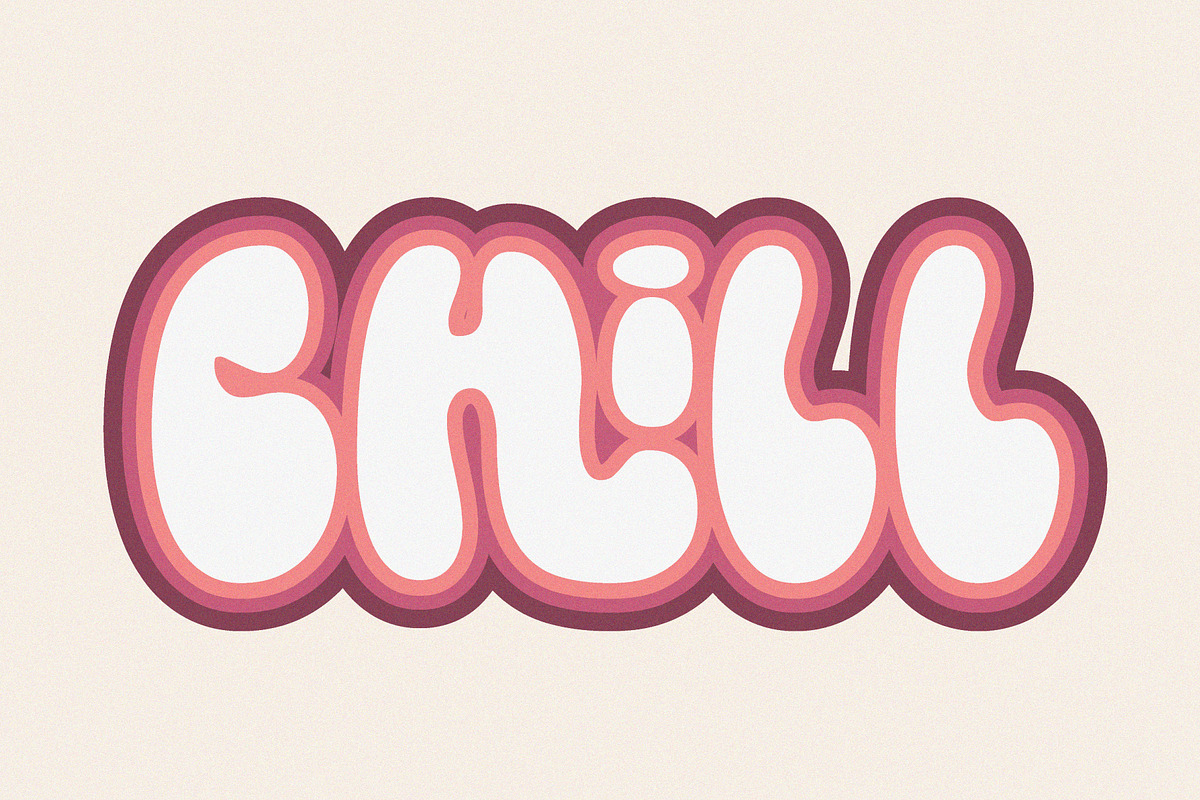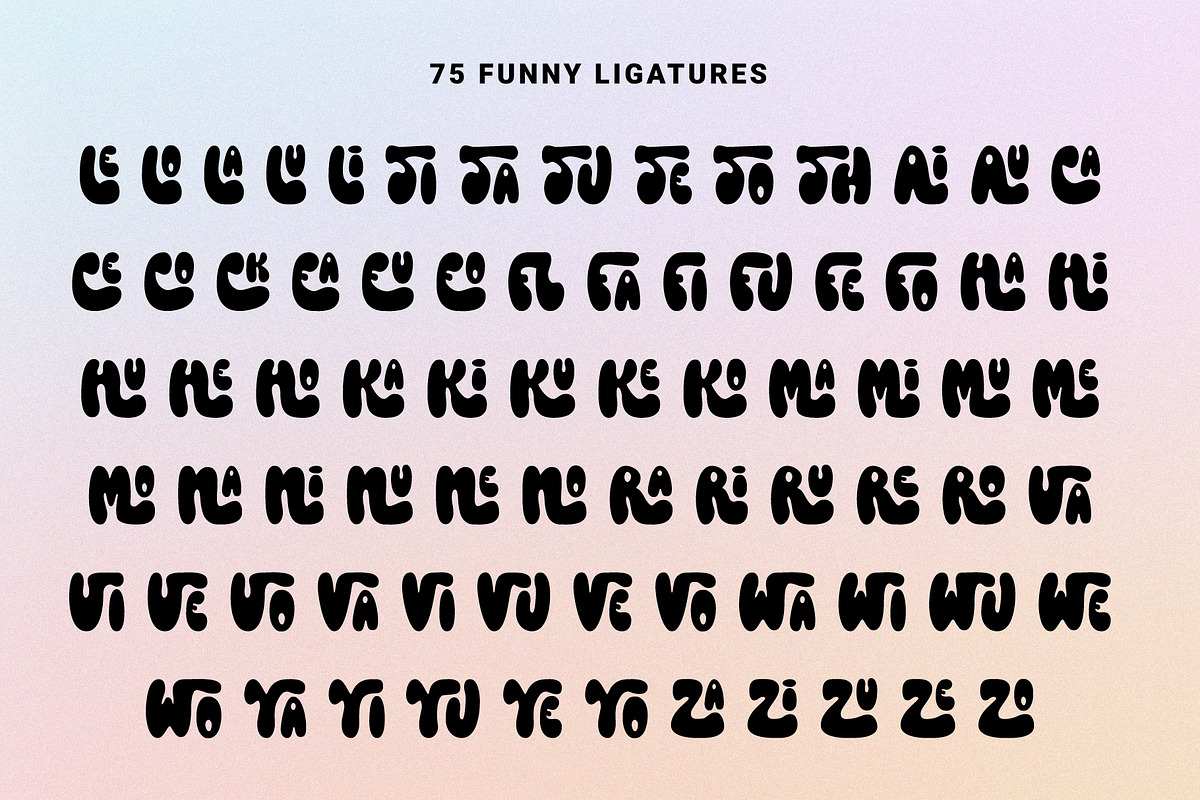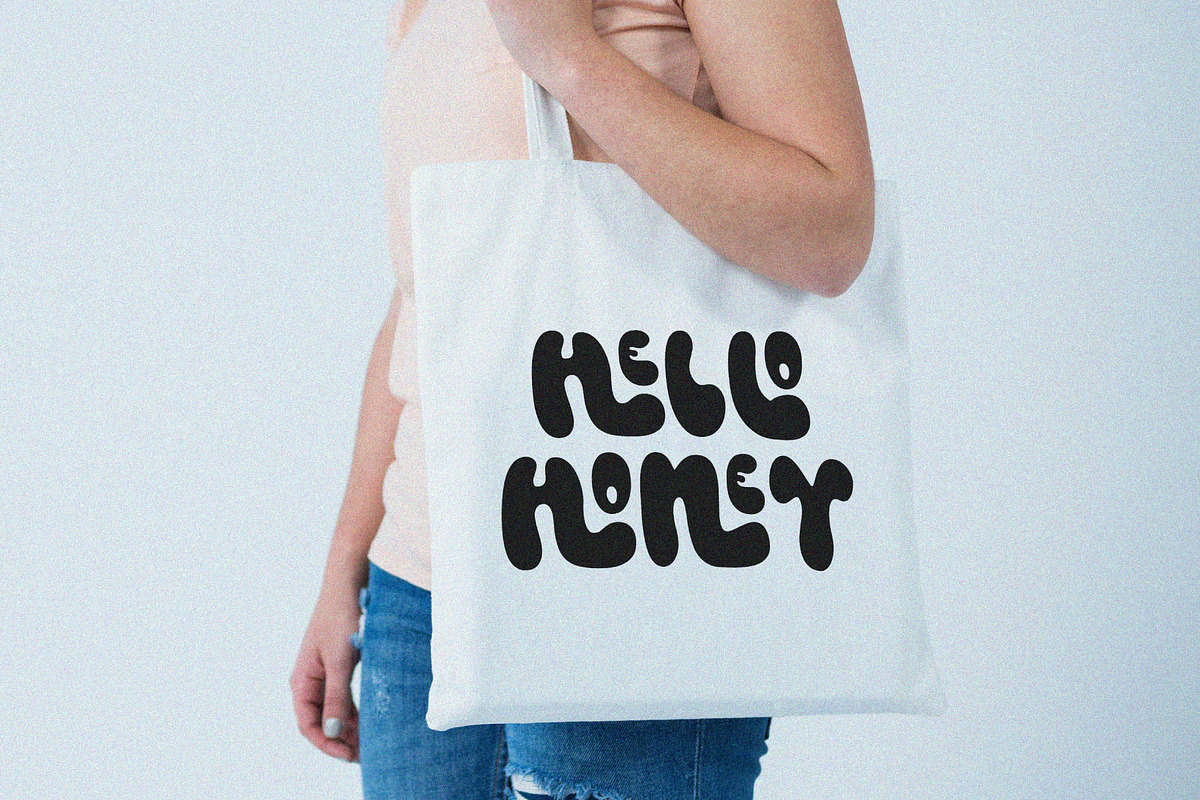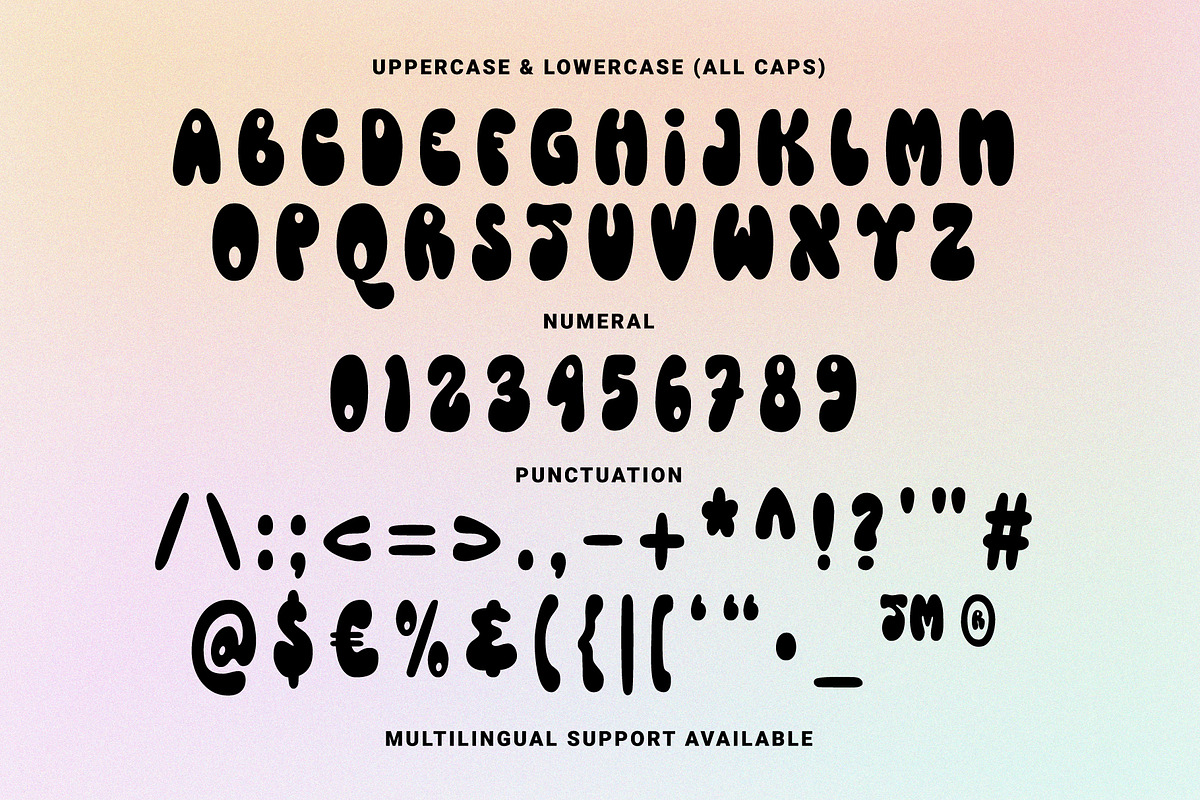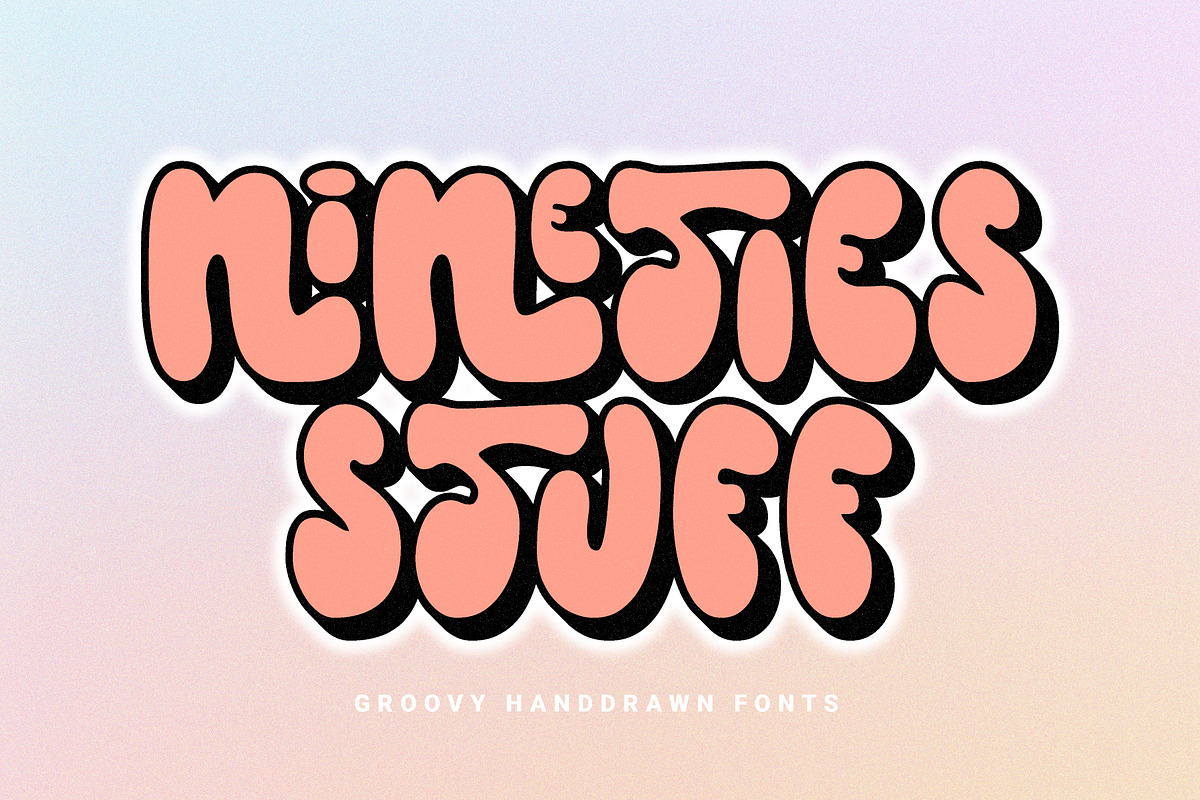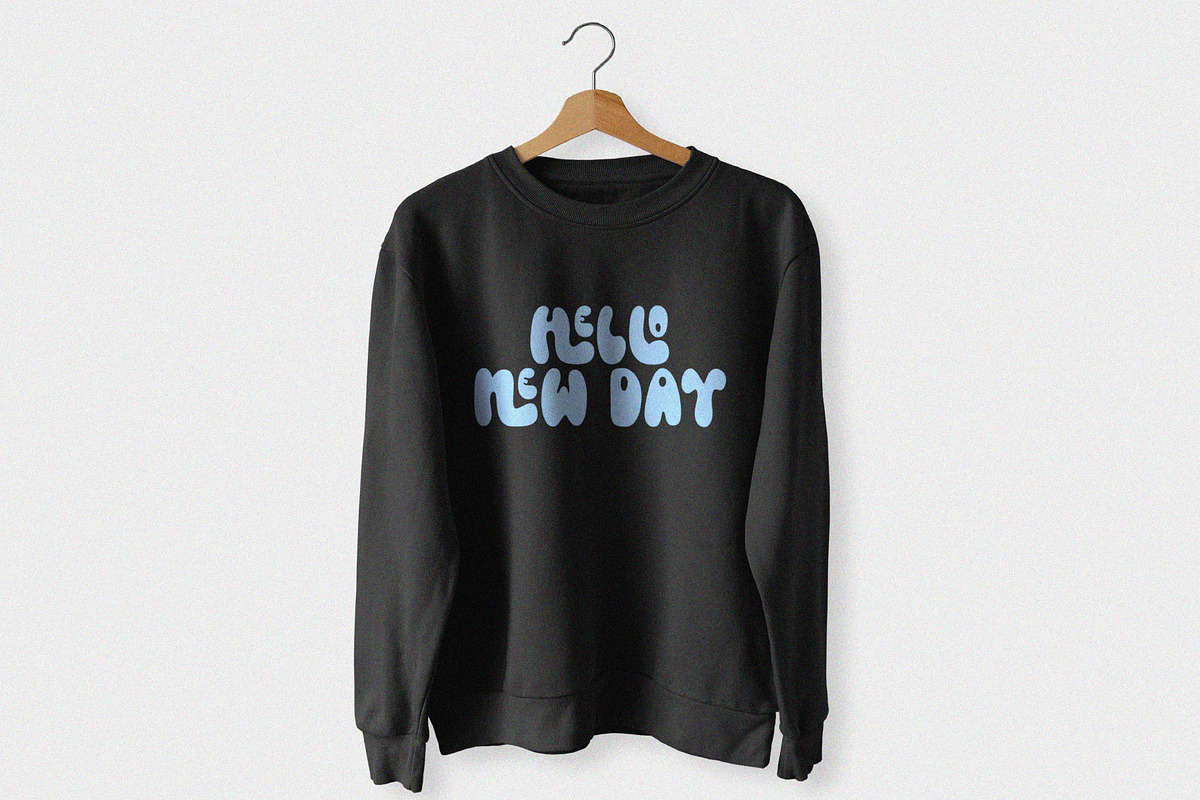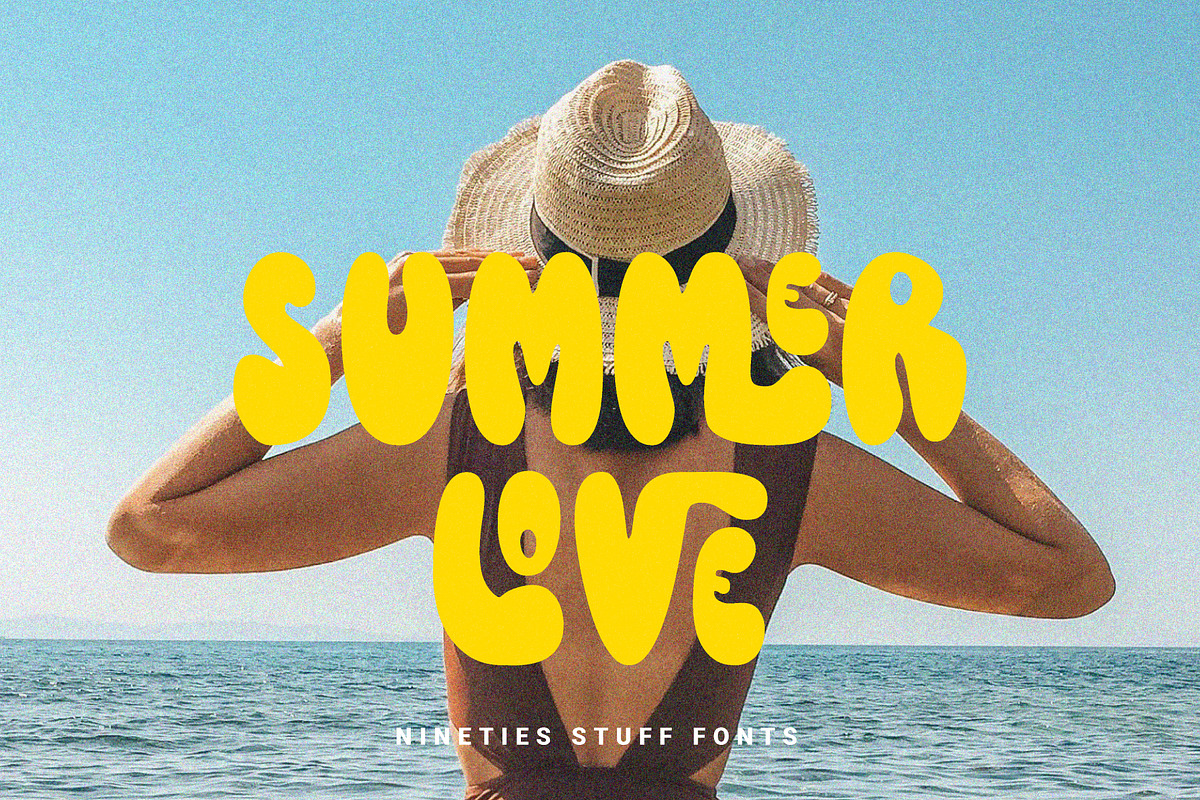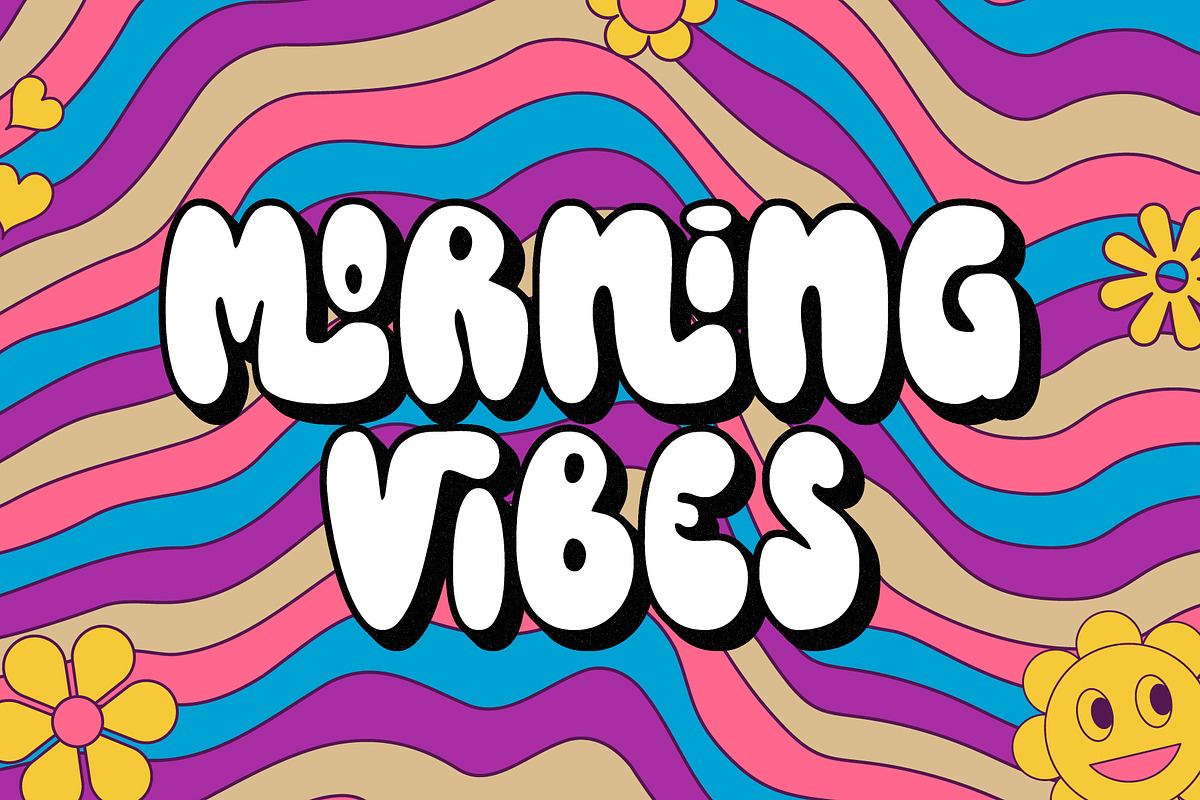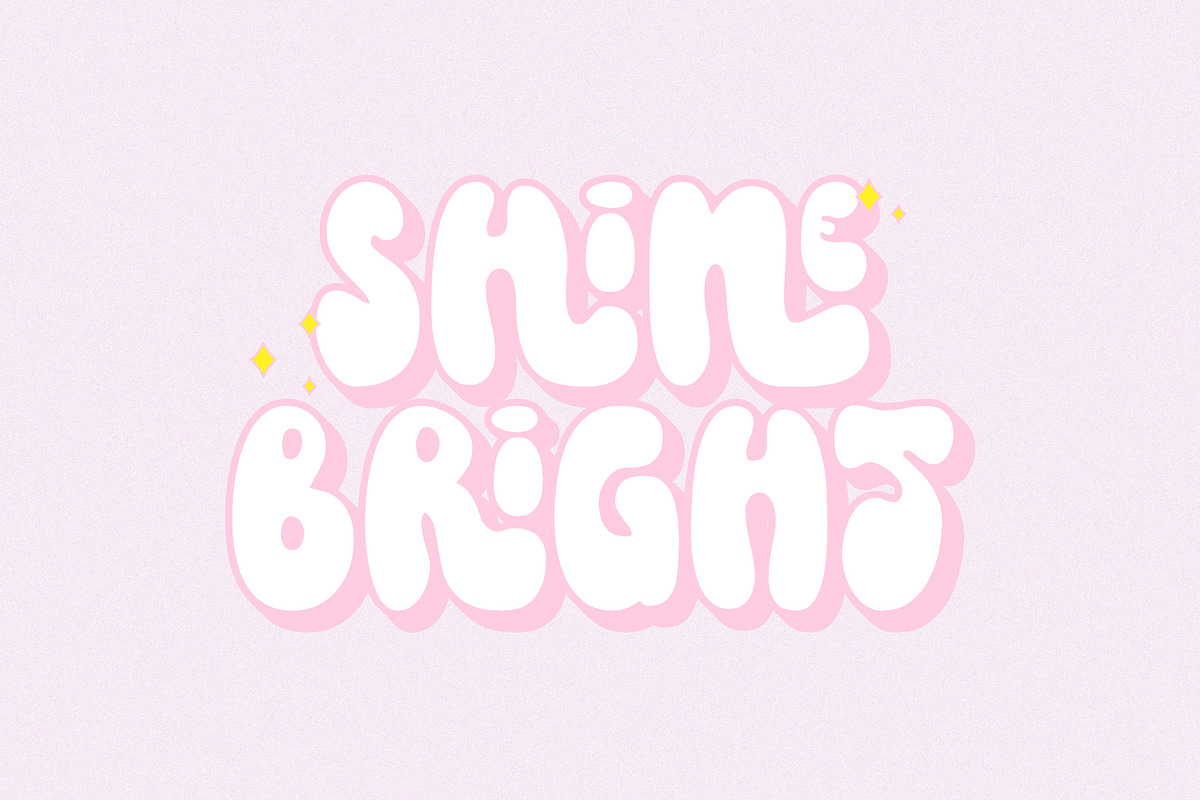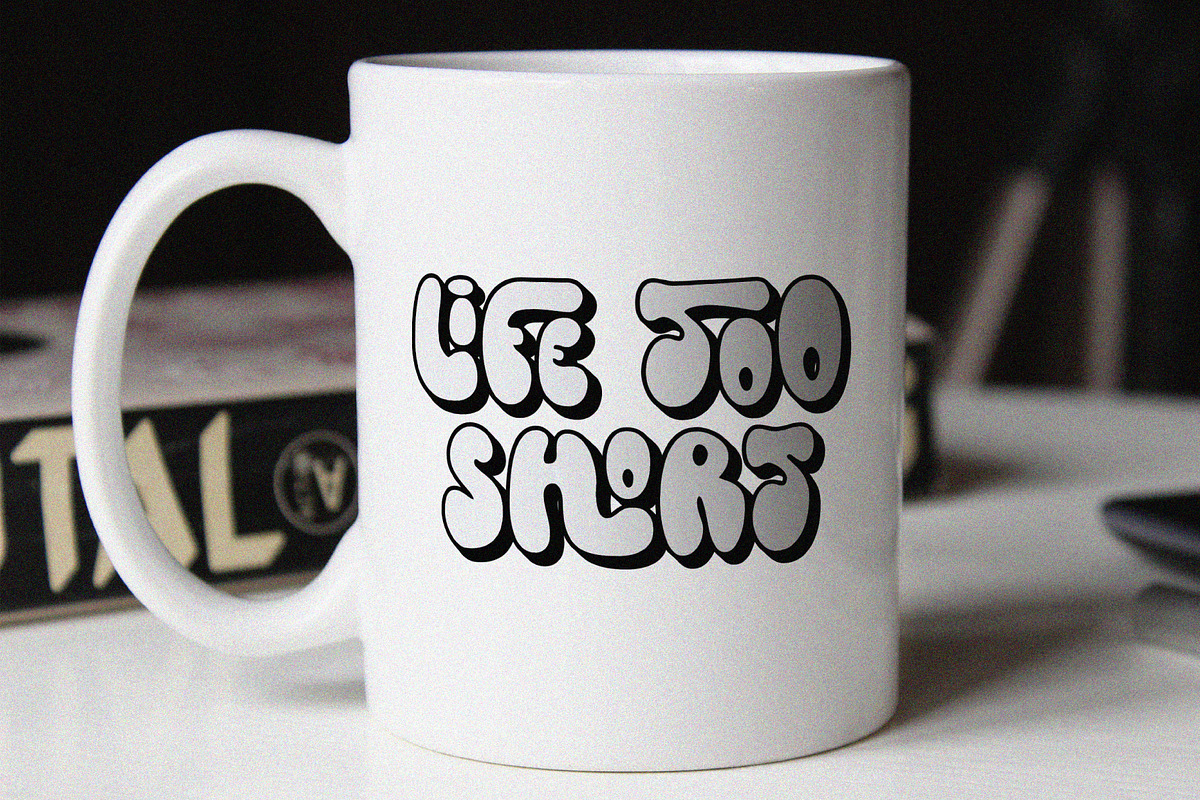
Introducing this new groovy font. Hand drawn font with unique and fun characteristics. Plus 75 character ligatures to make your designs more interesting. Also available in two styles, namely regular and extrude. Suitable for poster design, merchandise, creative posts, logos or branding.
- Features: Uppercase, Lowercase, Numeral, Punctuation, Multilingual & Ligatures.
- Multilingual contained: Afrikaans, Albanian, Asu, Basque, Bemba, Bena, Breton, Catalan, Chiga, Cornish, Danish, Dutch, English, Estonian, Filipino, Finnish, French, Friulian, Galician, German, Gusii, Indonesian, Irish, Italian, Kabuverdianu, Kalenjin, Kinyarwanda, Luo, Luxembourgish, Luyia, Machame, Makhuwa-Meetto, Makonde, Malagasy, Manx, Morisyen, North Ndebele, Norwegian Bokmål, Norwegian Nynorsk, Nyankole, Oromo, Portuguese, Quechua, Romansh, Rombo, Rundi, Rwa, Samburu, Sango, Sangu, Scottish Gaelic, Sena, Shambala, Shona, Soga, Somali, Spanish, Swahili, Swedish, Swiss German, Taita, Teso, Uzbek (Latin), Volapük, Vunjo, Zulu.